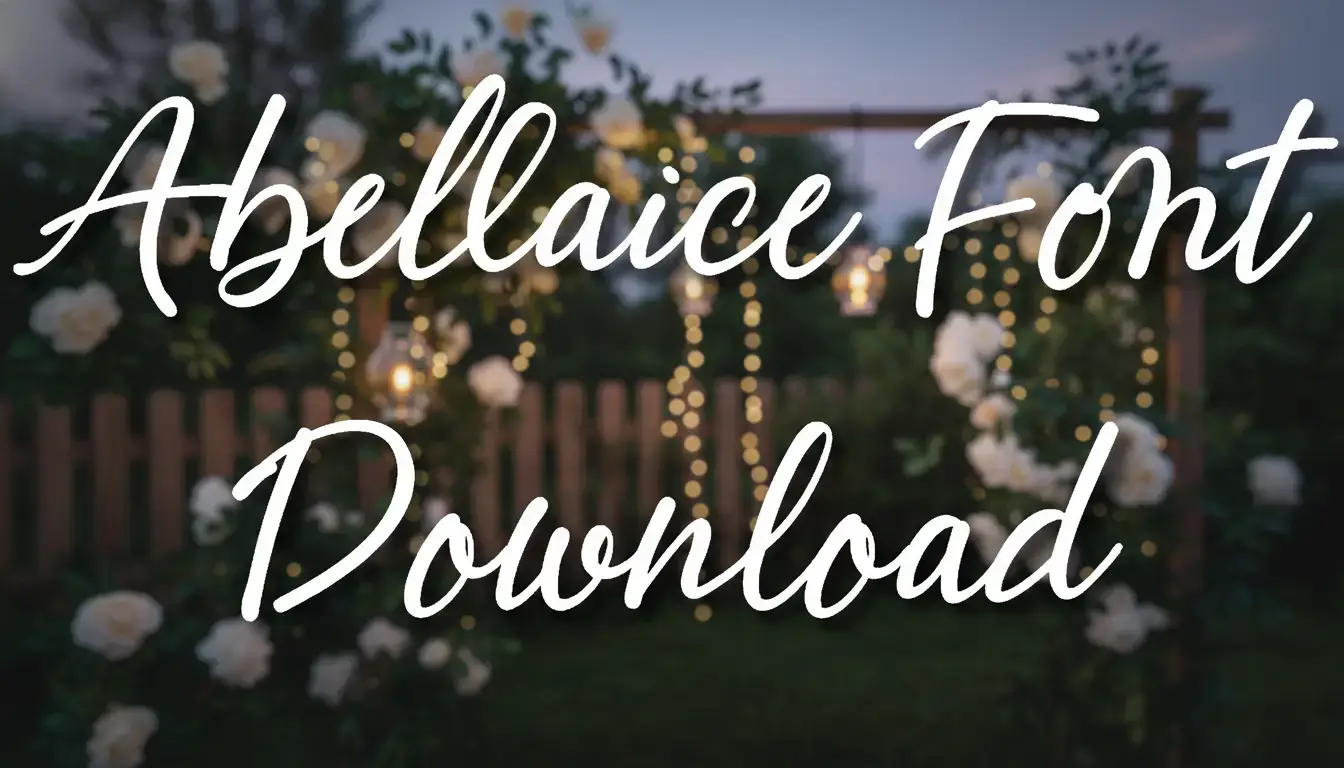
Abellaice Font
Abellaice
Abellaice is a script font made by Rinaldo Hasibuan. It has that hand-lettered, flowing feel people look for when regular type seems too stiff. It's a free download, and you can try it with your own text in the preview above first.
What You Can Type With Abellaice
You get every letter from A to Z in both cases and all the numbers from 0 to 9, which means Abellaice can handle full sentences, dates and prices. Common punctuation such as &, !, ? and @ is included as well. It also has the accented letters you need for Spanish, French, German, Portuguese and Italian.
Where Abellaice Works Best
Designers usually reach for fonts like Abellaice when they're making wedding invitations, logos and signature-style headings. Script fonts read best in short bursts, so keep it to names, titles and one-line quotes. Skip all caps: script capitals are drawn to start a word, not to fill one.
Does Abellaice support accented letters?
Yes. Abellaice includes the accented letters needed for Spanish, French, German, Portuguese and Italian, so it works for more than just English.